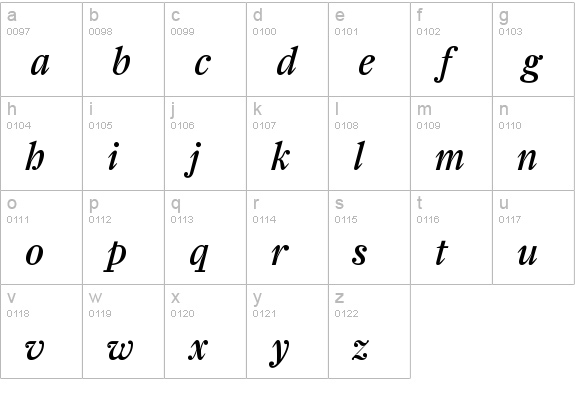
FarnhamDisplay-RegularItal Font Details
FarnhamDisplay-RegularItal is a stylish and elegant italic font that exudes sophistication and charm. Its refined curves and graceful slants make it perfect for adding a touch of class to any design project. Whether used for headings, quotes, or body text, this font is sure to make a statement. What makes FarnhamDisplay-RegularItal even more appealing is that it is available for free download at FontsMarket.com. This means that you can easily access this beautiful font without having to spend a dime. Don't miss out on the opportunity to enhance your designs with this exquisite typeface - get FarnhamDisplay-RegularItal today and take your projects to the next level.